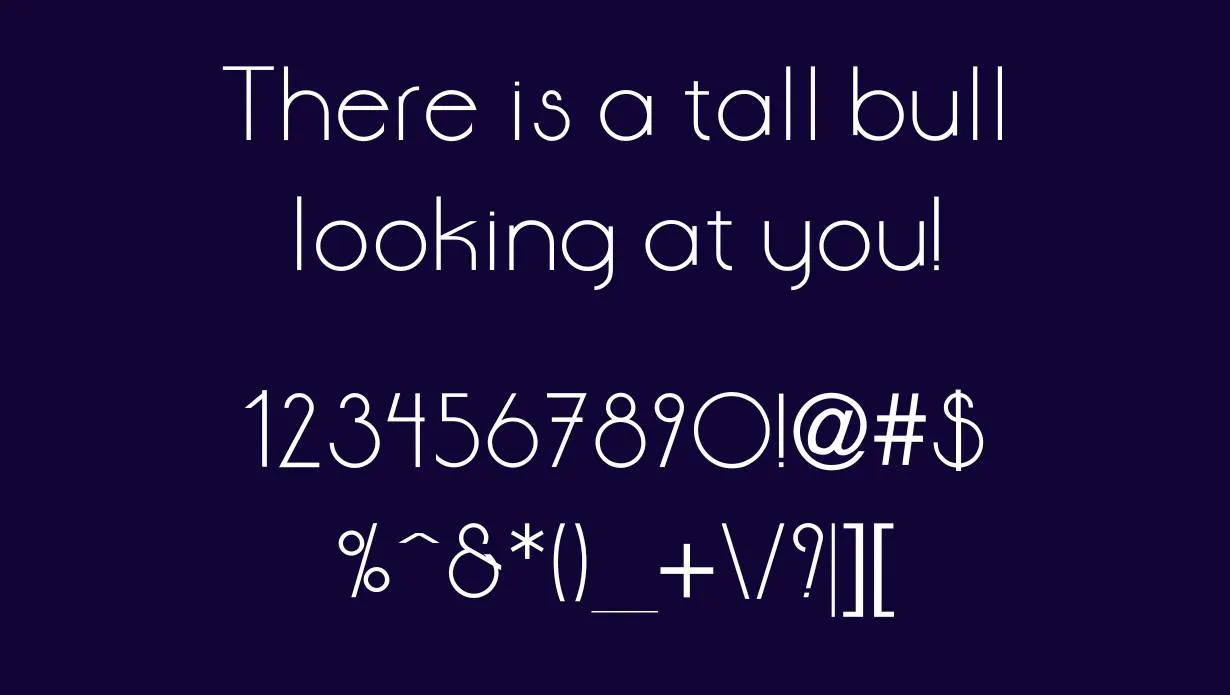
Amorous Font is like a tender dance for your words. Each letter moves with grace, creating an atmosphere of love and elegance. When you use Amorous Font, your writing becomes like a sweet serenade, making every word feel affectionate and charming.
It’s like the gentle melody of a romantic tune, giving your words a warm and heartfelt vibe. Choose an Amorous Font when you want your writing to have the gentle touch of a loving embrace.
Name | Amorous Font |
Designer | Dexter De Guzman |
Style | Fancy |